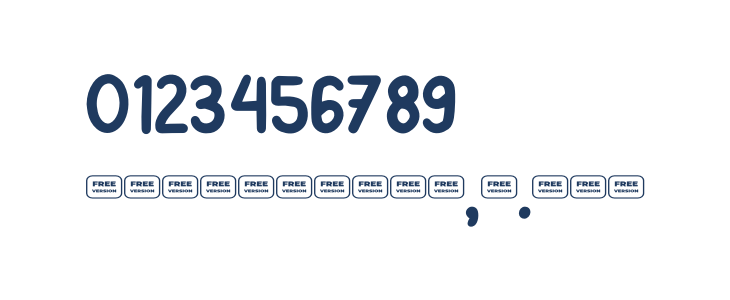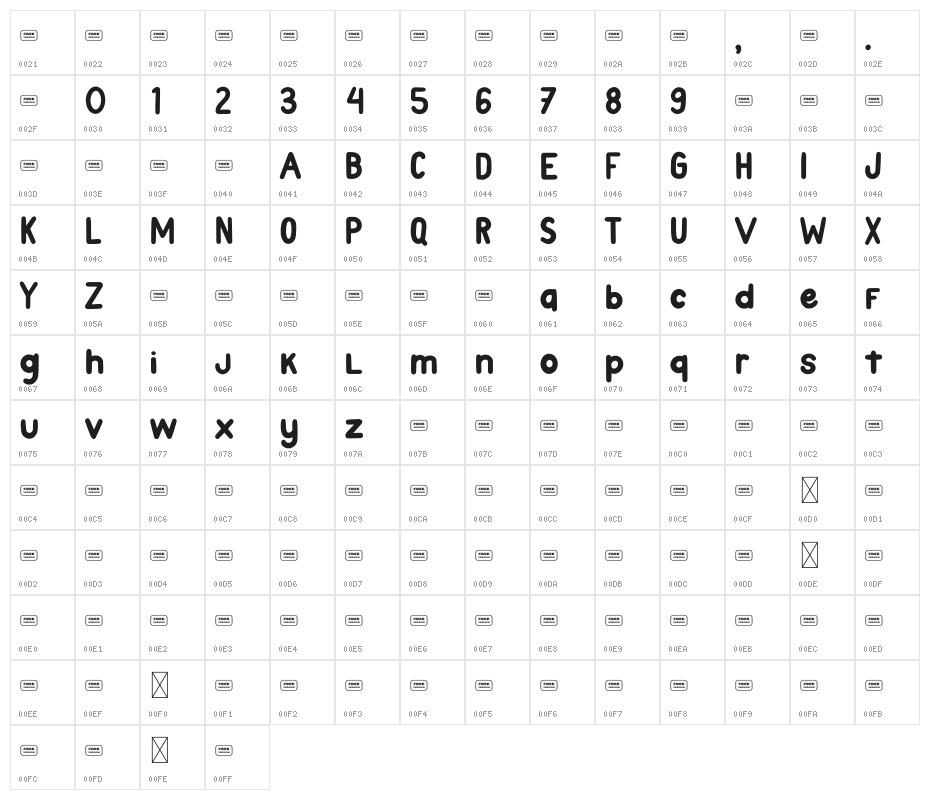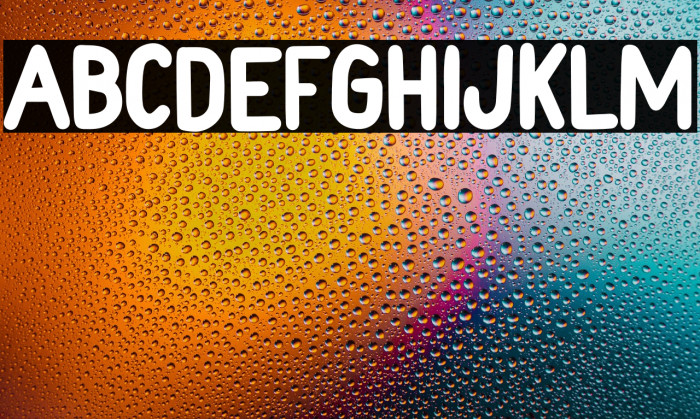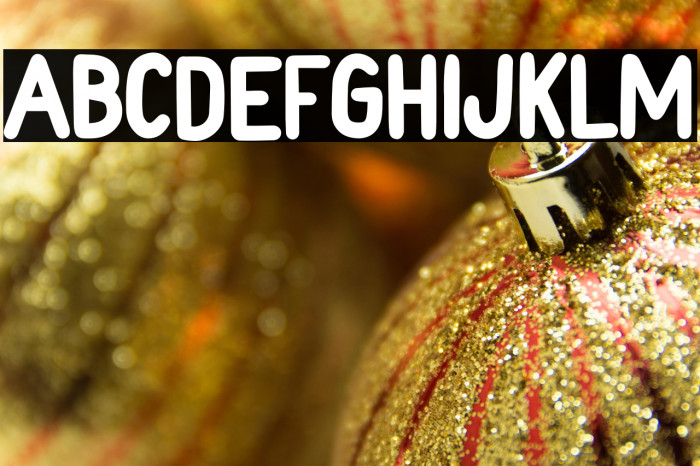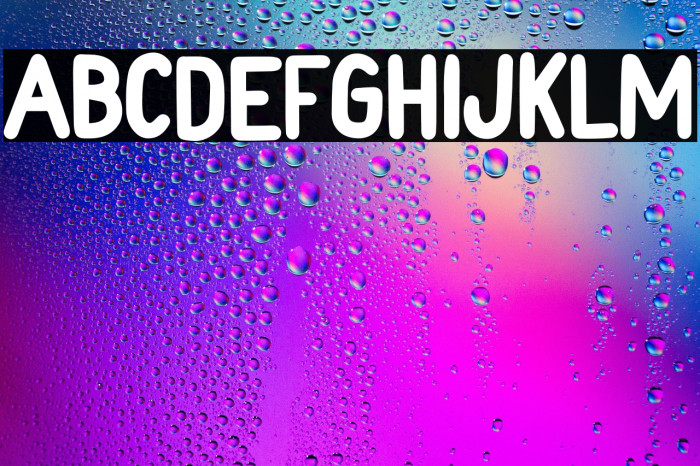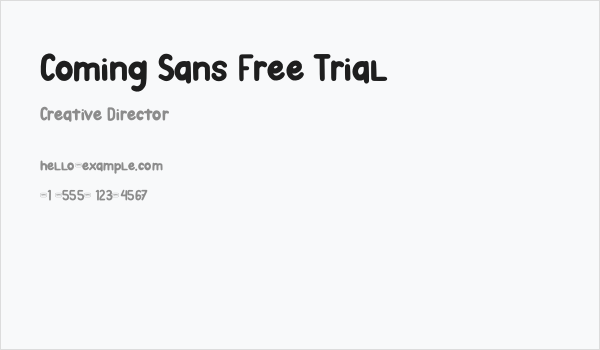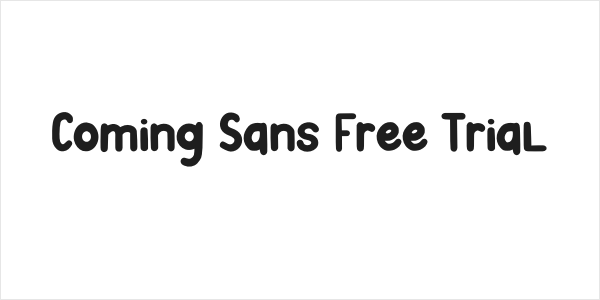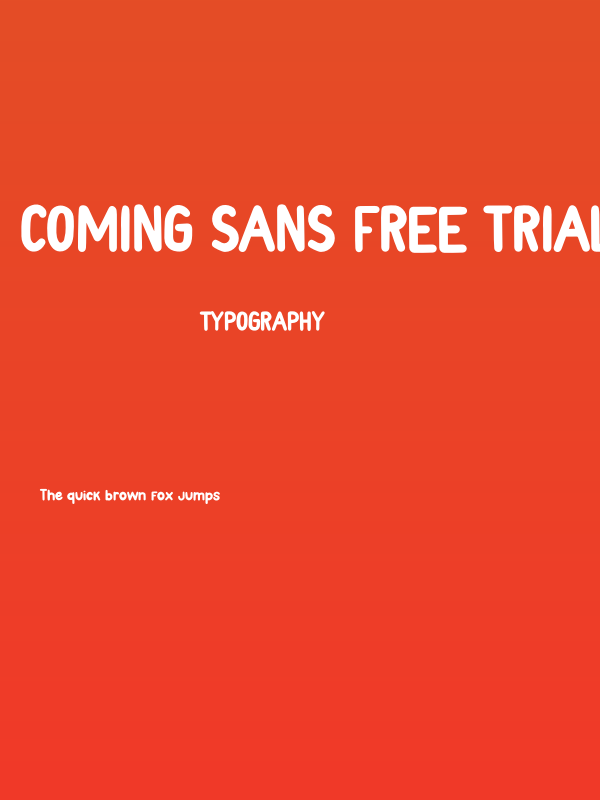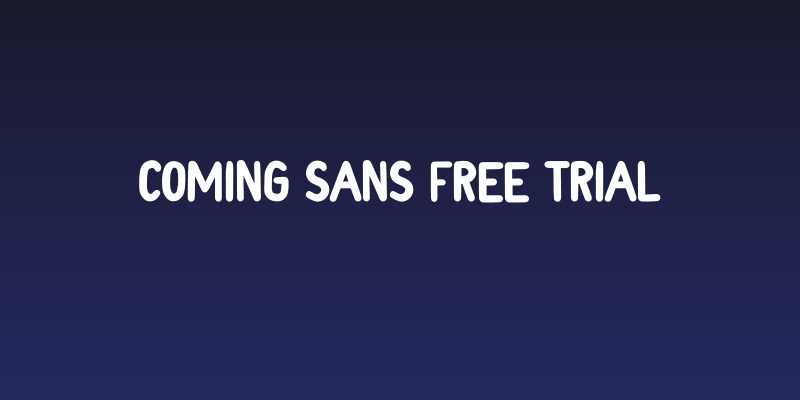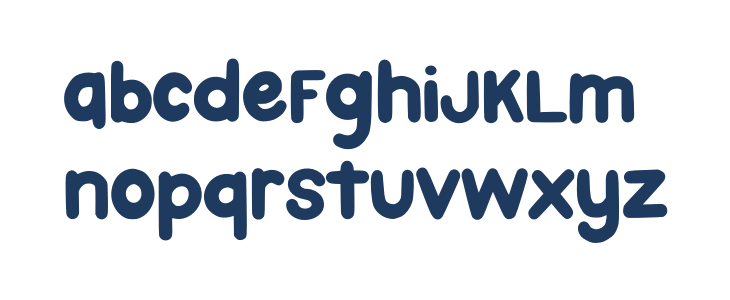
Coming Sans Free Trial Font
Coming Sans Free Trial Description
This font features a playful and rounded style, characterized by its bold and friendly appearance. The letters are evenly weighted, with smooth curves and a consistent stroke width that gives it a modern and approachable feel. The uppercase and lowercase letters maintain a uniform height, contributing to its clean and cohesive look. The numerals and special characters follow the same design principles, ensuring a harmonious overall appearance. This font is ideal for projects that require a casual and inviting tone.
| Use Case | Headlines, Logos, Social Media |
| Proposed Projects | Ideal for children's books, playful branding, casual invitations, and social media graphics. |